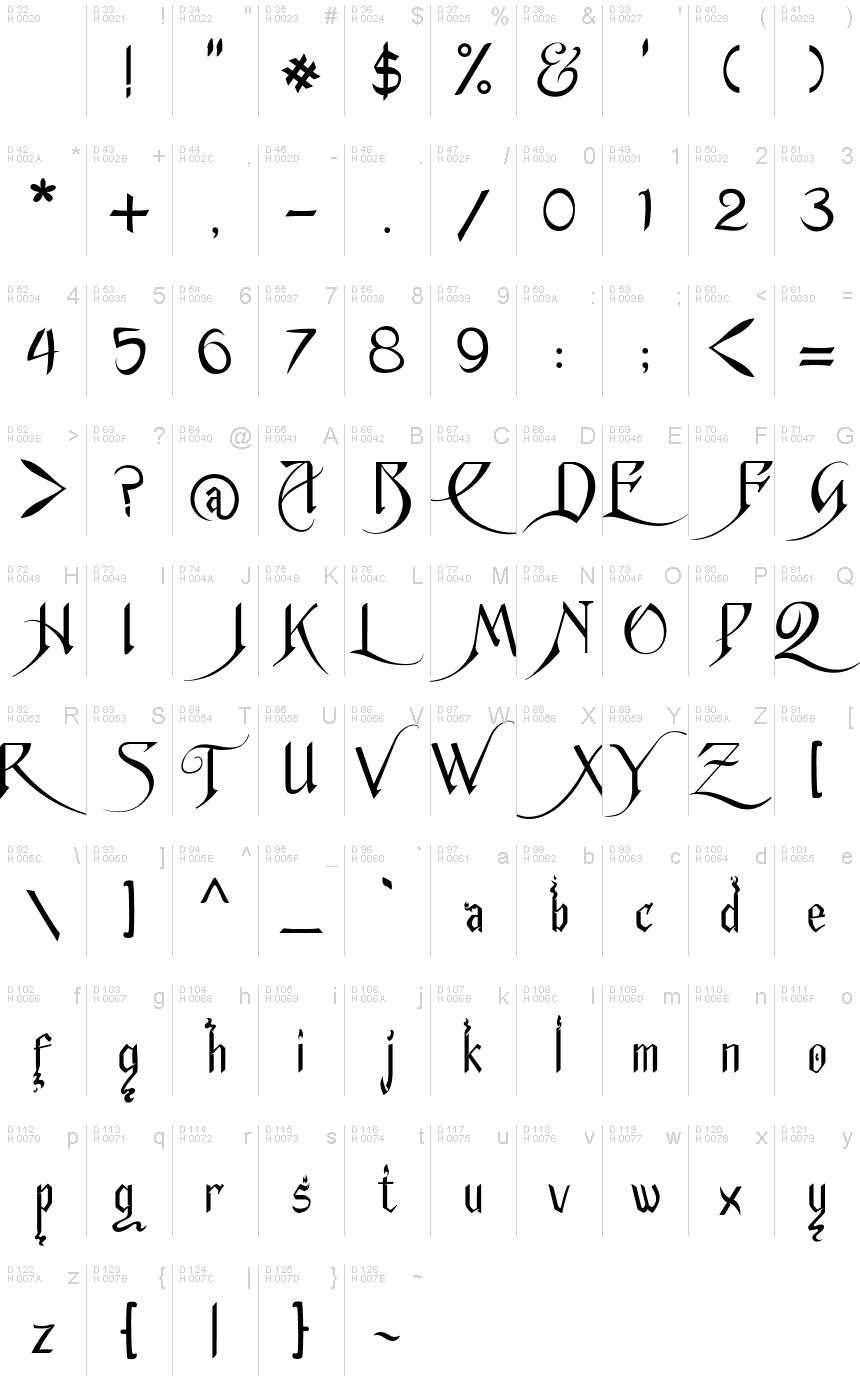
Anger and Wrath is a latin typography with an extra styles of fire ornaments. This set of fonts can be your alternative option to your lettering design, posters, flyers, invitations, and other displayed products.
Wrath Styles